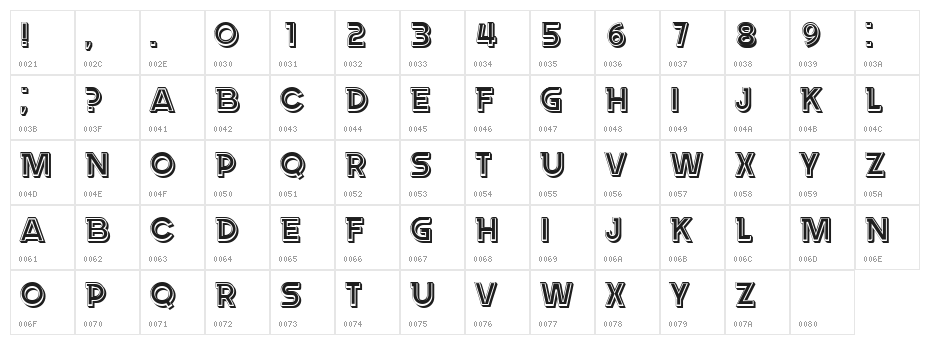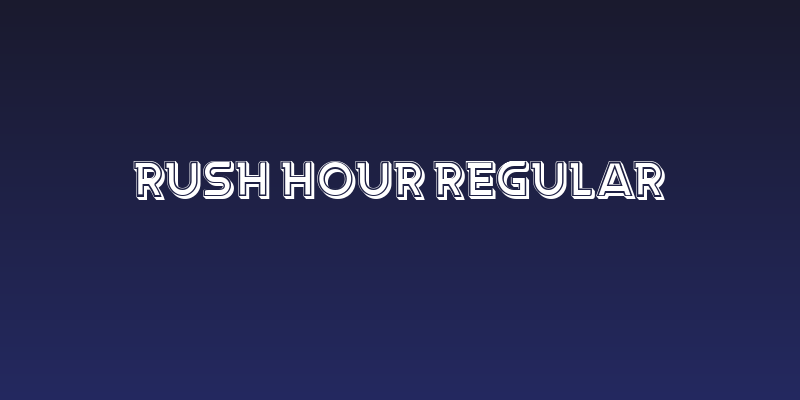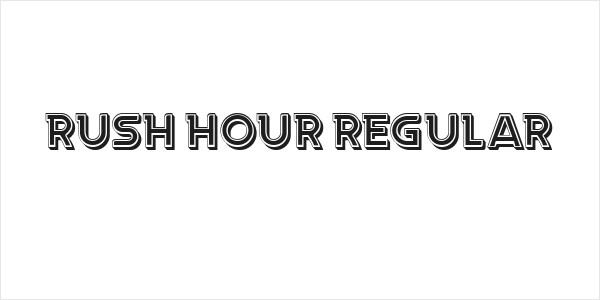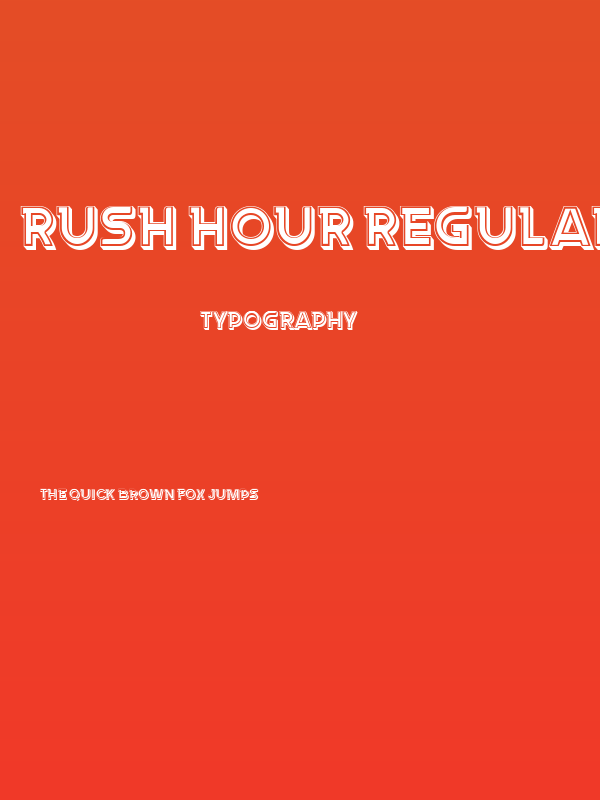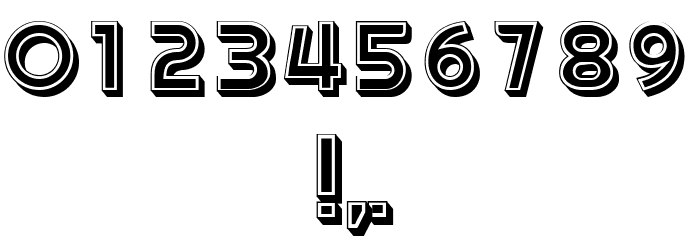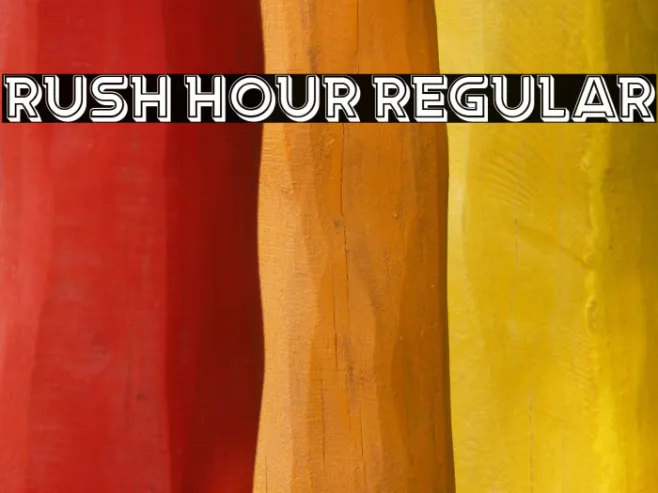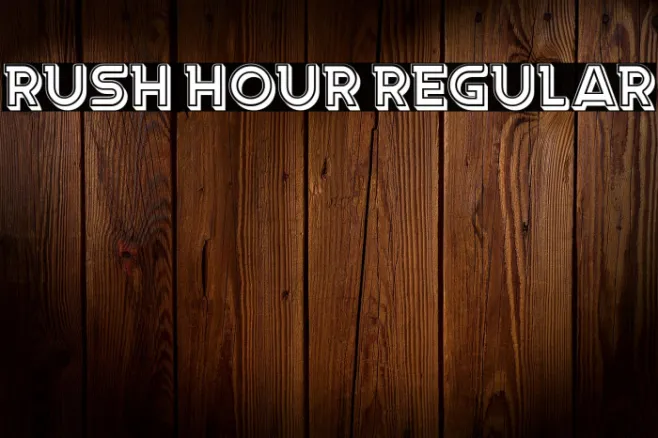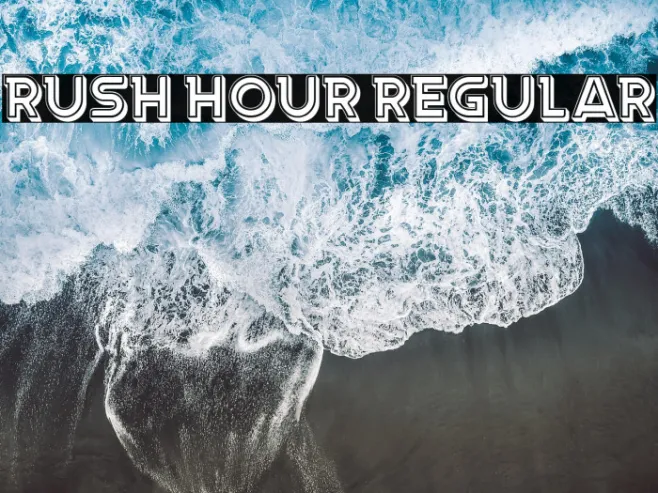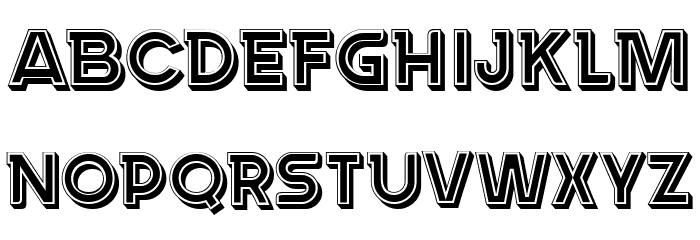
Rush Hour Regular Font
Rush Hour Regular Description
This font features a bold, three-dimensional appearance with a strong, shadowed outline that gives it a striking and impactful look. The characters are uppercase and numerals, with a geometric and structured design that emphasizes clarity and readability. The shadow effect adds depth, making it suitable for eye-catching headlines or titles. The font's style is modern and dynamic, with a playful yet professional aesthetic. It is well-suited for projects that require a bold statement, such as posters, advertisements, or branding materials. The spacing between characters is normal, ensuring legibility while maintaining its distinctive style.
| Proposed Projects | Ideal for posters, advertisements, branding, and any project needing a bold visual impact. |